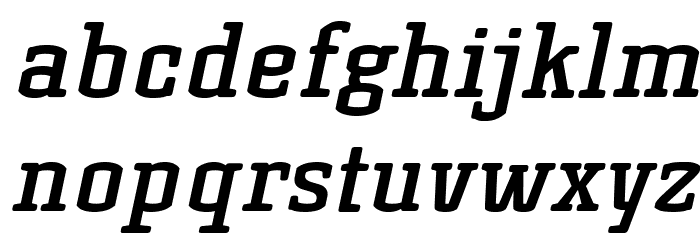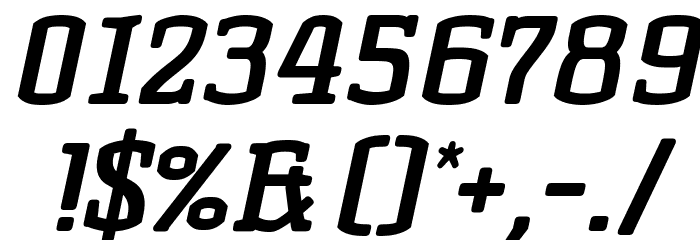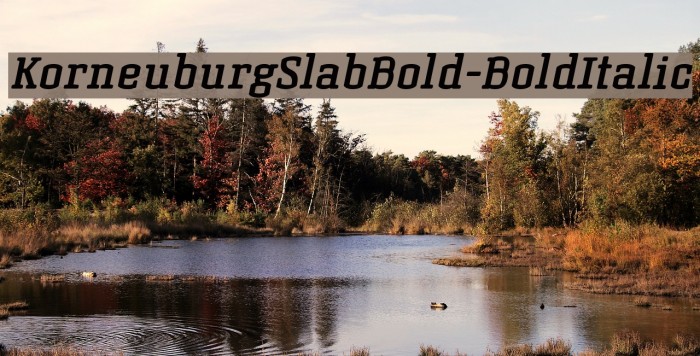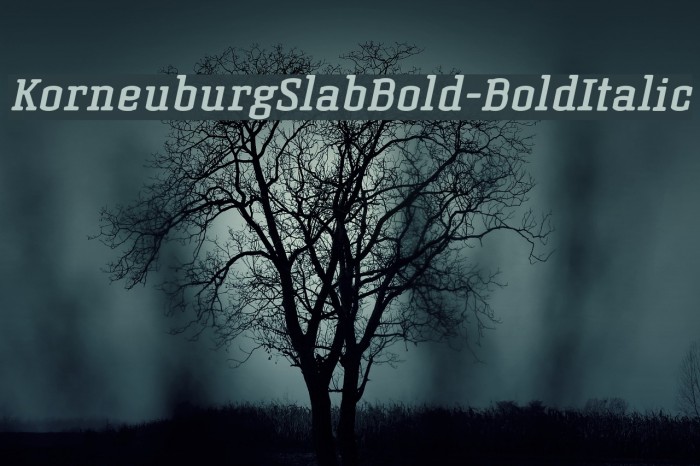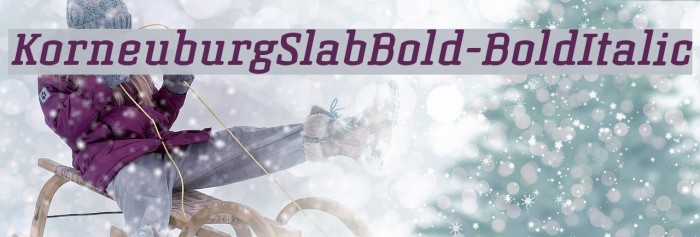
KorneuburgSlabBold-BoldItalic Font
This font is a bold and italicized slab serif with a strong presence. The characters are robust and slightly condensed, featuring thick, consistent strokes that give it a solid and authoritative appearance. The italic slant adds a dynamic and energetic feel, making it suitable for impactful headlines and titles. The uppercase letters are tall and commanding, while the lowercase letters maintain a balanced and cohesive look. Numbers and special characters are designed with the same boldness and clarity, ensuring readability across various applications.
A bold, italic slab serif with strong, condensed characters and dynamic style.
- Proposed Projects: Ideal for branding, advertising, posters, and any design requiring a bold statement.